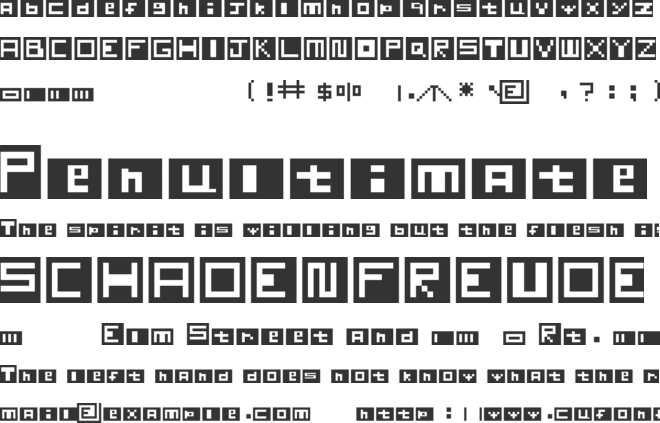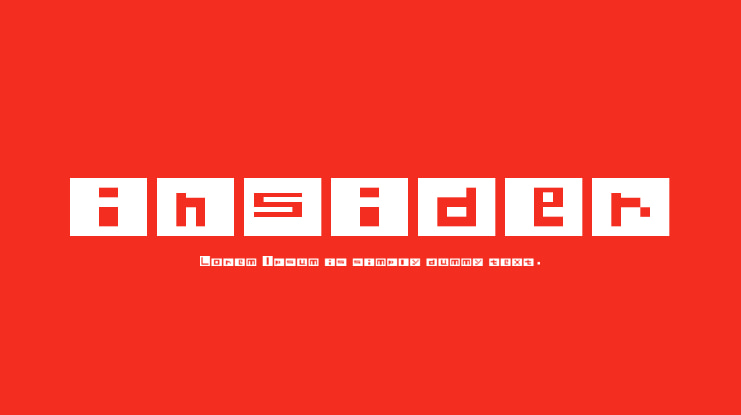
insider Font
Hello everybody. This is my font from FONTSTRUCT. It creates fonts. This font in particular has the letters inside a block. Symbols, however, sre normal and a bit off-balanced